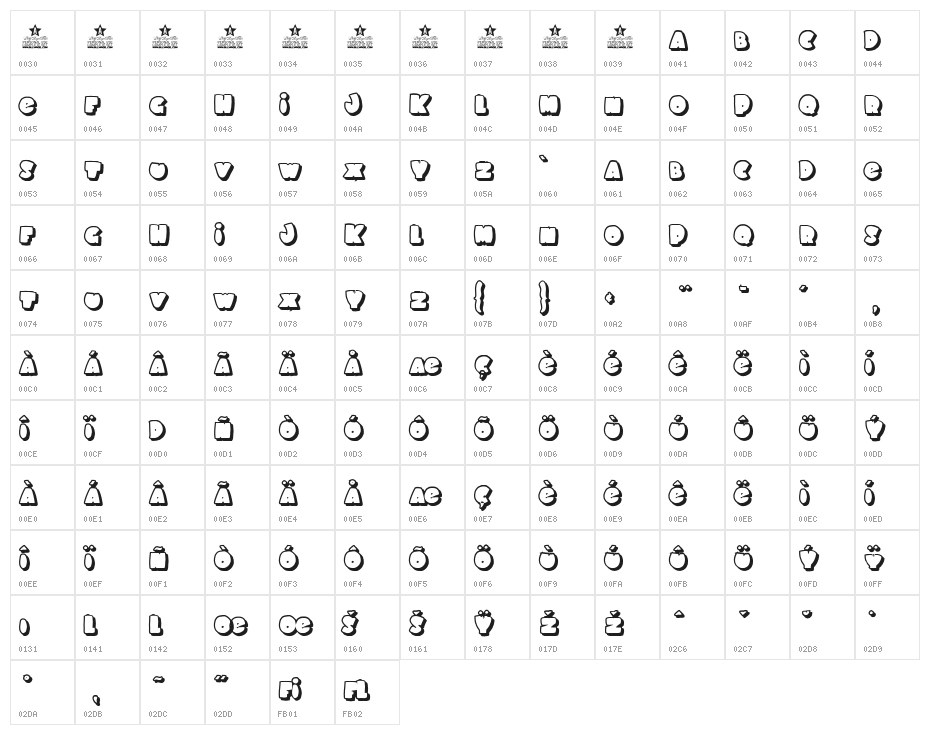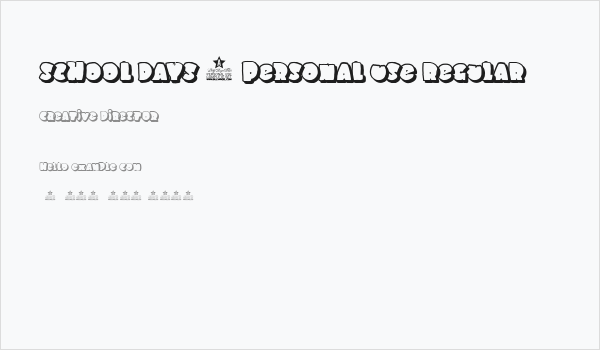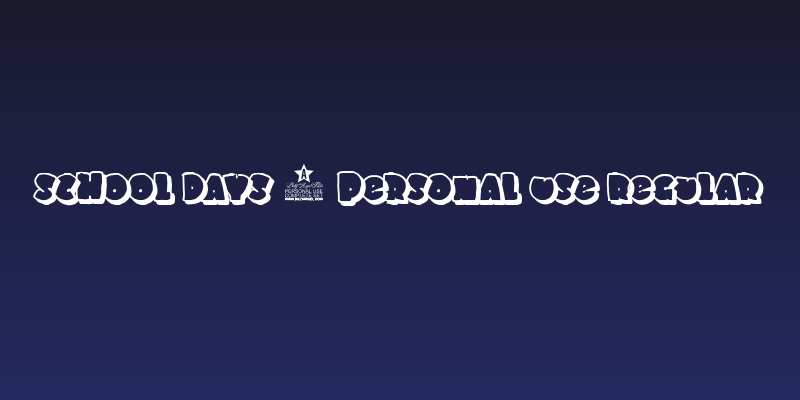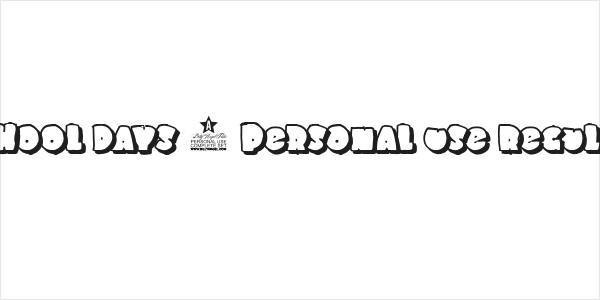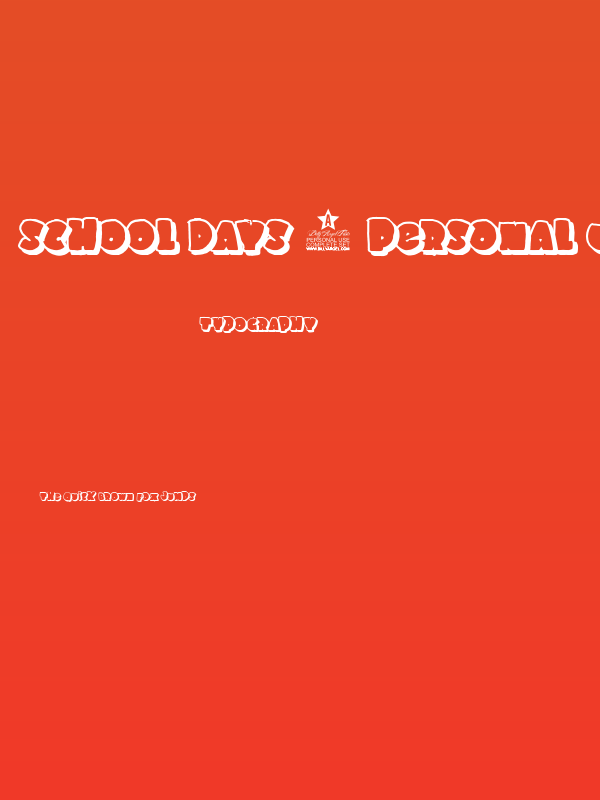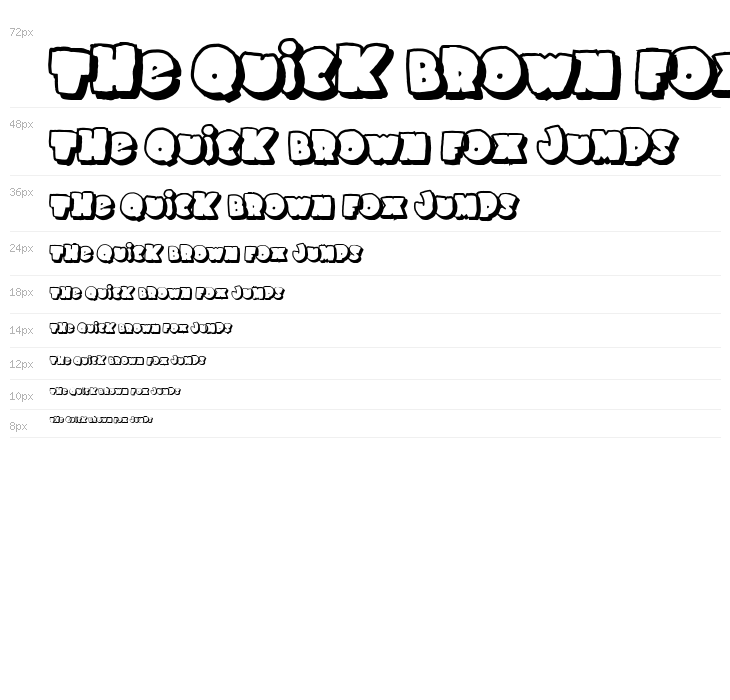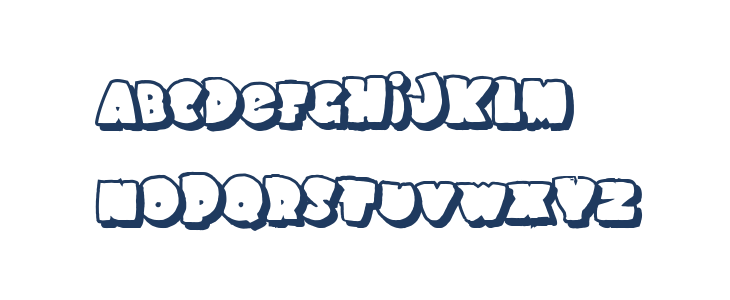
SCHOOL DAYS 2 PERSONAL USE Regular Font
SCHOOL DAYS 2 PERSONAL USE Regular Description
This playful and bold font features thick, rounded characters with a distinct shadow effect that gives a three-dimensional appearance. The letters are uniformly wide, creating a cohesive and eye-catching look. The style is reminiscent of graffiti or comic book lettering, making it ideal for projects that require a fun and energetic vibe. The font maintains consistent thickness throughout each character, contributing to its bold and impactful presence. Its unique design is perfect for capturing attention and conveying a sense of creativity and excitement.
| Overall Style | Playful, Energetic, Creative |
| Use Case | Headlines, Posters, Branding |
| Proposed Projects | Perfect for children's book covers, comic strips, posters, and playful branding materials. |